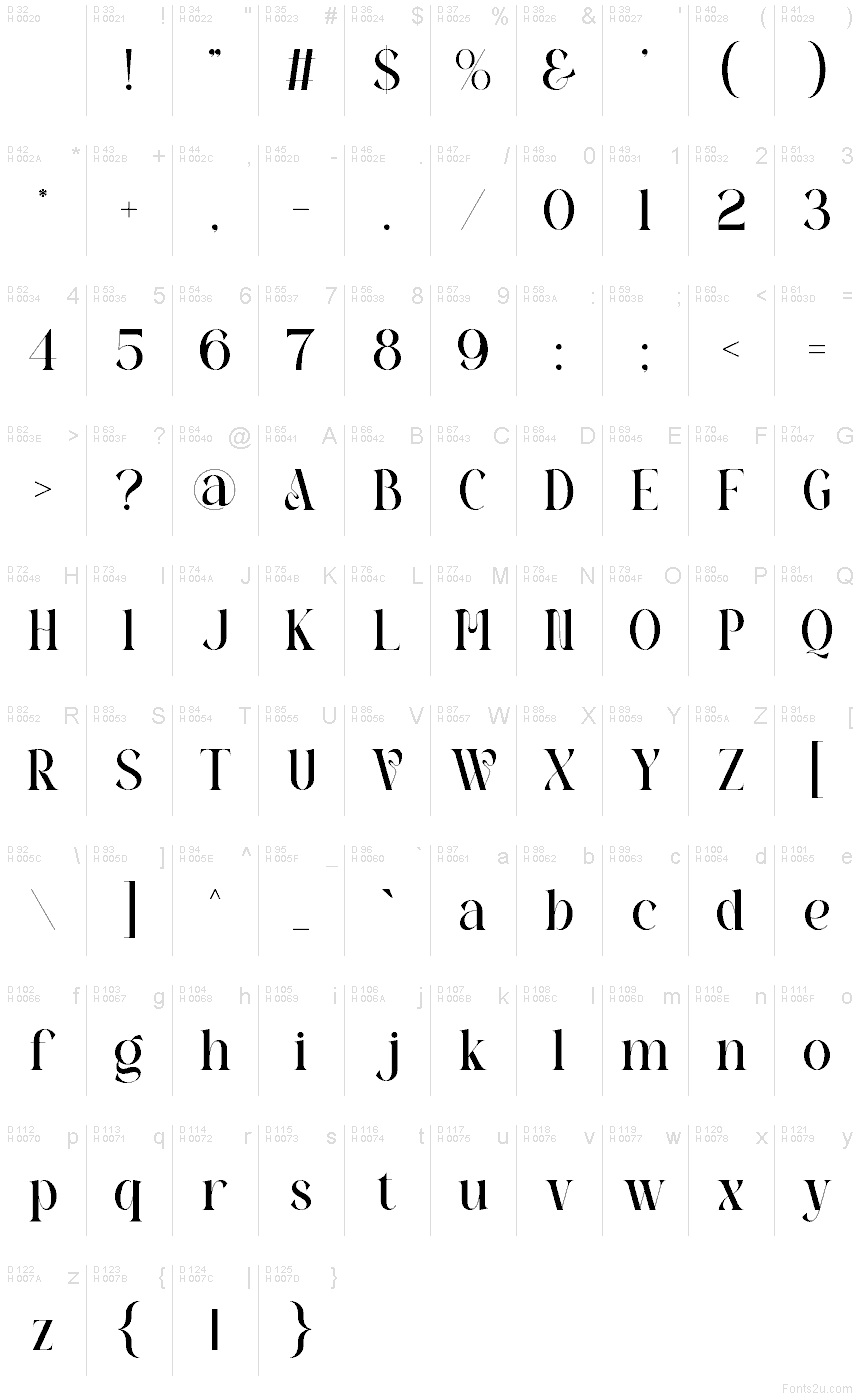
Antesa Regular
Antesa font by Ermedia Studio is a free vintage serif display font. Built around sculptural contrast, Antesa swings from inky thick strokes to razor-thin hairlines, with elegant curls and knife-edged serifs that feel both couture and classic. It has a slow, dramatic rhythm—letters look carved rather than drawn—so headlines catch light like polished metal.
Using Antesa, you’ll elevate editorial titles, boutique branding, perfume or fashion logos, wine labels, book covers, and statement posters. This free font rewards generous sizing and a touch of letterspacing for that airy, gallery-lit presence. Pair it with a clean, understated sans to let the curves breathe while keeping layouts crisp and modern.